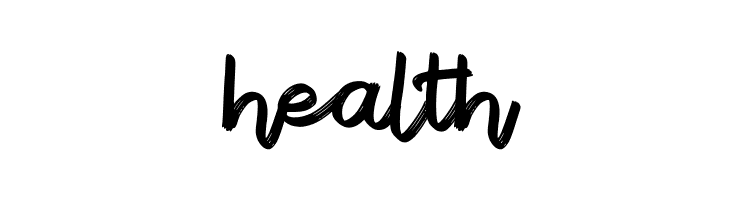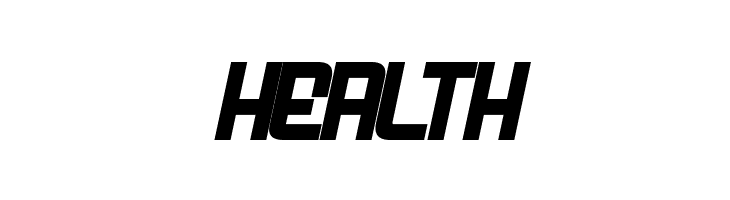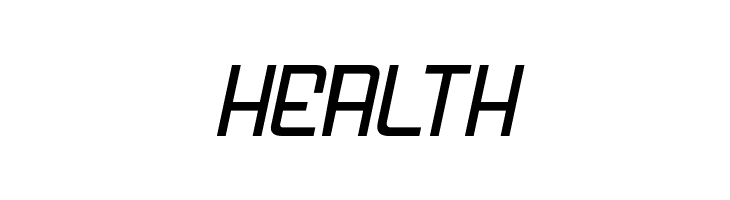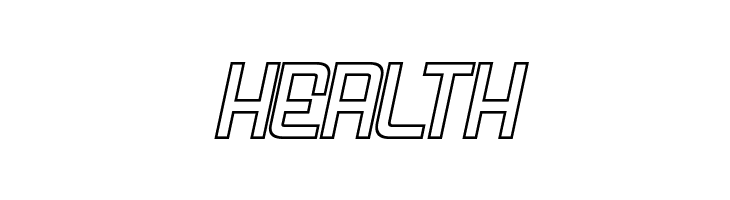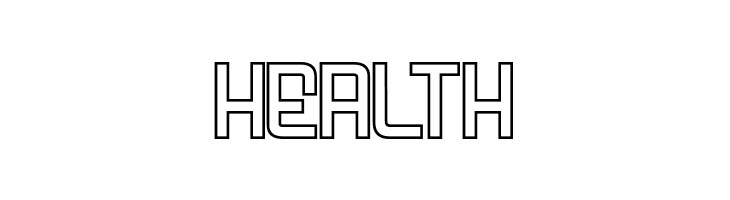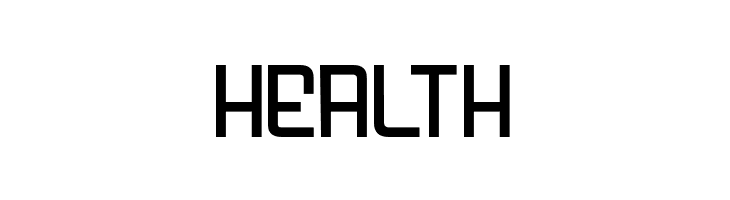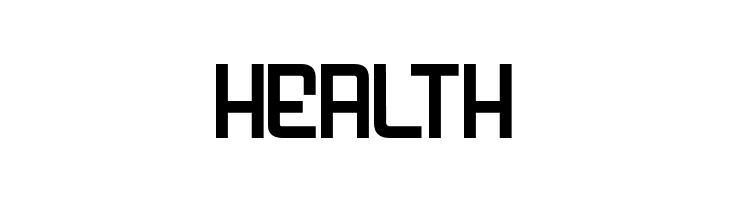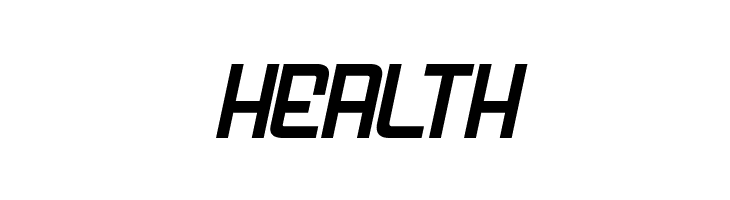
A bold, expressive script font with fluid, interconnected strokes.
A bold, italicized font with a futuristic and angular design.
A sleek, italicized font with a modern and futuristic design.
A bold, italic, hollow font with a modern, futuristic style.
A bold, geometric font with a hollow interior and a modern, digital look.
A bold, italicized font with a modern, angular design.
A modern, geometric font with a futuristic and structured design.
A bold, geometric font with a modern and industrial style.
A bold, angular italic font with a modern, dynamic style.